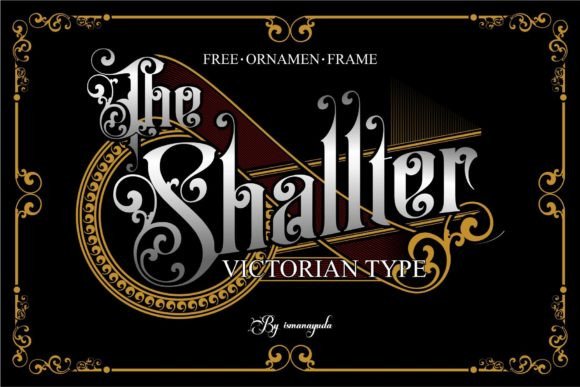
Introducing The Shallter Font, your ultimate key to unlocking the grandeur and elegance of the Victorian era. Designed by the talented ismanayuda, this blackletter font exudes a timeless charm that is perfect for various creative projects.
Are you ready to embark on a journey to the golden age of royalty? The Shallter Font will transport you to a world of opulence and sophistication. Its intricate and ornate design captures the essence of Victorian aesthetics, making it the ideal choice for those seeking to add a touch of grandeur to their work.
Imagine the possibilities that await you with The Shallter Font. Whether you are a tattoo artist looking to create stunning studio designs or a logo designer in search of a font that exudes class and prestige, this font is the answer to all your needs. Its regal appearance will elevate your creations, leaving a lasting impression on anyone who lays eyes on them.
Are you a coffee shop owner seeking to capture the essence of a bygone era? The Shallter Font is the perfect companion for your brand. Its vintage allure will transport your customers back in time, creating a unique and nostalgic ambiance that sets your coffee shop apart from the rest. From menu designs to signage, this font will add a touch of Victorian charm to every aspect of your business.
Not limited to coffee shops, The Shallter Font is also an excellent choice for cafe mock-ups. Bring your vision to life with this captivating font, allowing your customers to experience the elegance and sophistication of a bygone era. With its attention to detail and intricate flourishes, this font will truly make your mock-ups come alive.
But that's not all! The Shallter Font is a versatile tool that can be used for a wide range of projects. Its stylish and unique design is perfect for book covers, wedding invitations, event posters, and so much more. Let your creativity run wild as you explore the endless possibilities that this font has to offer.
In conclusion, The Shallter Font is the ultimate font for anyone seeking to add a touch of Victorian elegance to their creations. Its exquisite design, created by ismanayuda, will captivate and mesmerize your audience, leaving them in awe of your artistic prowess. Unlock the grandeur of the Victorian era and let your imagination soar with The Shallter Font. Download it now and embark on a journey to a world of timeless beauty and sophistication.